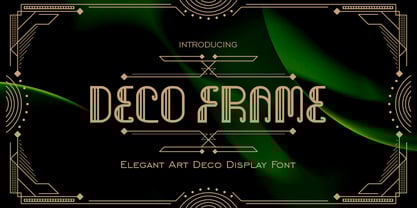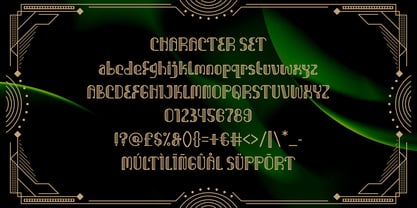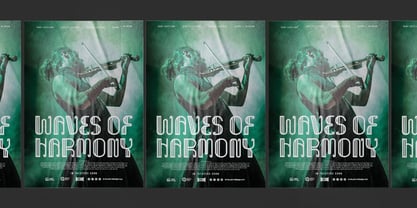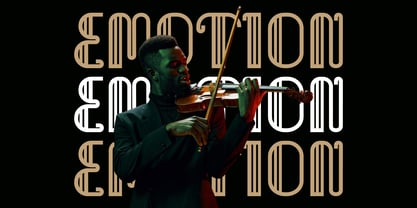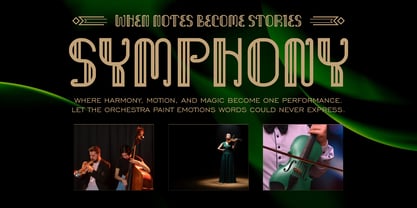
Deco Frame
by Shanaf
The Deco Frame Font Family was designed by Yesie Erma Yunita and published by Shanaf. Deco Frame contains 1 styles. More about this family
Deco Frame Elegant Art Deco Display Font delivers a refined blend of classic elegance and geometric precision. Each character features tall proportions, slim strokes, and smooth linework that highlight its Art Deco inspiration. Curved terminals meet structured vertical forms, creating a graceful balance between softness and symmetry. The font carries a luxurious atmosphere through its linear detailing, giving every letter a sophisticated decorative rhythm. Its display-focused structure ensures strong visibility in large compositions and maintains crisp clarity across various design media. Deco Frame Elegant Art Deco Display Font offers an elevated sense of style that enhances expressive creative work with ease and confidence. This typeface works beautifully for logo design, branding systems, posters, packaging, film titles, book covers, editorial layouts, and invitation cards. Designers gain a versatile tool for premium visual storytelling due to its distinct character shapes and memorable silhouette. Its tall letterforms add drama to headlines while its refined curves bring elegance to crafted messages. The font also supports expressive compositions for advertising, business identities, magazine layouts, and creative décor projects. Its timeless Art Deco structure brings sophistication to both modern and vintage themes, making it a valuable choice for designers who want a decorative yet polished display font.
Designers: Yesie Erma Yunita
Foundry: Shanaf